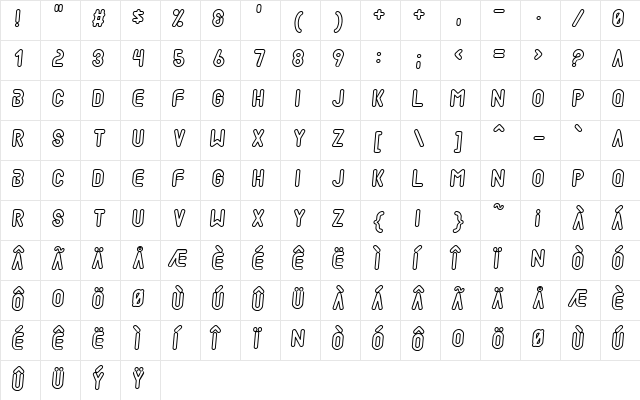
Mad scientist outline Regular
Mad scientist outline brings ornamental detail and strong personality to headlines and identities, where visual impact matters more than quiet functionality.
Font Pairing: Pair with a clean neutral sans-serif for body copy to let Mad scientist outline's character lead without overwhelming the composition.
Pro Tip: Treat Mad scientist outline as the centrepiece of your typographic hierarchy. One strong heading set in a decorative face can carry an entire layout.